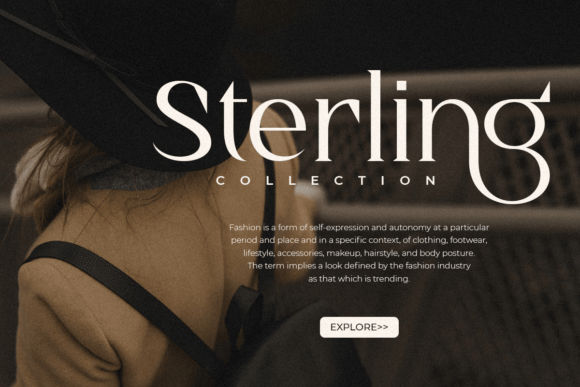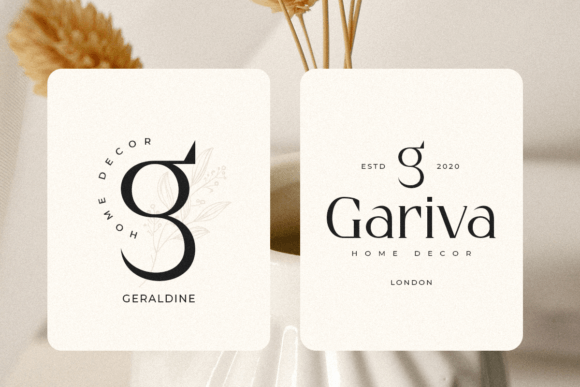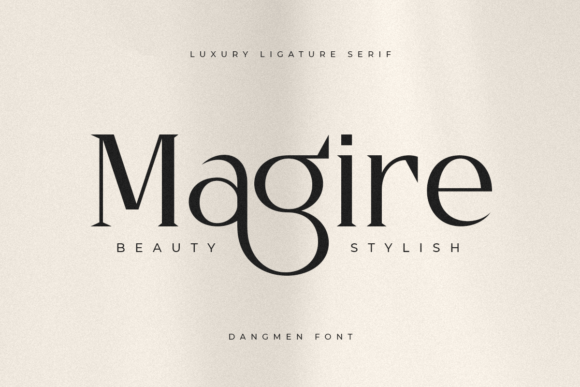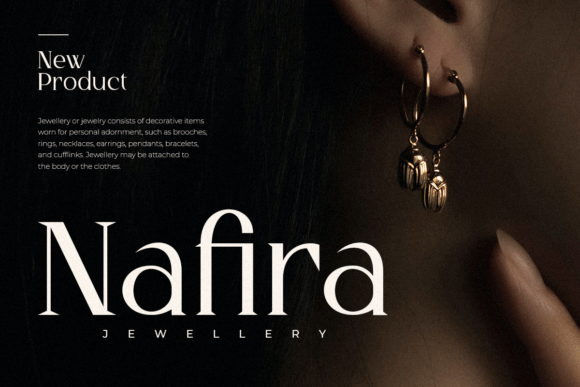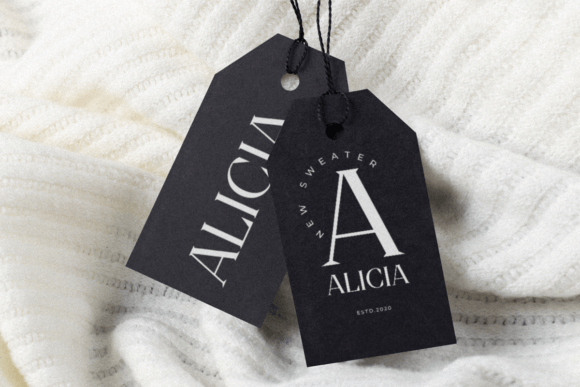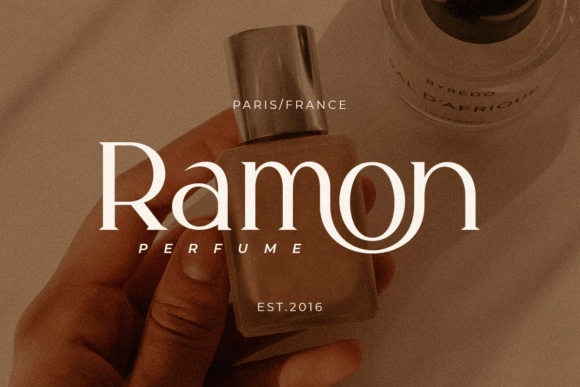
Dangmen Font: Elevate Your Designs with Elegance and Sophistication
In the world of typography, a well-crafted font can make all the difference in elevating your designs to new heights. Introducing Dangmen Font, an elegant serif font that exudes a delicate and classy look, perfect for designers and crafters seeking to add a touch of sophistication to their projects.
The Beauty of Balance: Dangmen’s Unique Characteristics
Dangmen Font strikes the perfect balance between style and legibility. Not too thin and not too thick, its balanced and varied design ensures that your text remains clear and readable, while its elegant serifs add a touch of refinement. Whether you’re working on a branding project, a website, or a craft, Dangmen Font is the perfect choice for those seeking to create a lasting impression.
Delicate yet Durable: The Versatility of Dangmen Font
One of the standout features of Dangmen Font is its versatility. Its delicate yet durable design makes it suitable for a wide range of applications, from:
- Branding and Logo Design: Create a lasting impression with Dangmen Font’s elegant and sophisticated look.
- Web Design: Enhance your website’s typography with a font that’s both readable and visually appealing.
- Print Design: From business cards to brochures, Dangmen Font is the perfect choice for any print project.
- Crafting and DIY Projects: Add a touch of elegance to your handmade crafts, such as journals, planners, and more.
Why Choose Dangmen Font?
With so many fonts available, why choose Dangmen Font? Here are just a few reasons why designers and crafters are falling in love with this elegant serif font:
- Unique and Distinctive: Dangmen Font’s delicate and classy look sets it apart from more traditional serif fonts.
- Highly Legible: Its balanced design ensures that your text remains clear and readable, even at smaller font sizes.
- Versatile: Suitable for a wide range of applications, from digital to print.
- Elegant and Sophisticated: Add a touch of refinement to your designs with Dangmen Font’s elegant serifs.
Tips for Using Dangmen Font Effectively
To get the most out of Dangmen Font, here are a few tips to keep in mind:
- Pair with a Sans-Serif Font: Create visual interest by pairing Dangmen Font with a sans-serif font for headings and body text.
- Experiment with Font Sizes: Dangmen Font’s versatility means it looks great at a range of font sizes, from small to large.
- Use for Headings and Body Text: Dangmen Font’s legibility makes it suitable for both headings and body text.
| Font Name | Dangmen Font |
| Author | sensatype |
In conclusion, Dangmen Font is an elegant serif font that’s sure to elevate your designs to new heights. Its delicate and classy look, balanced and varied design, and versatility make it the perfect choice for designers and crafters seeking to add a touch of sophistication to their projects. Whether you’re working on a branding project, a website, or a craft, Dangmen Font is the perfect choice for those seeking to create a lasting impression.
Get Ready to Elevate Your Designs with Dangmen Font